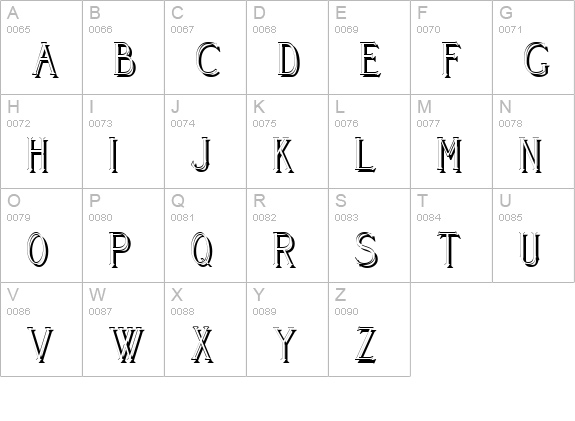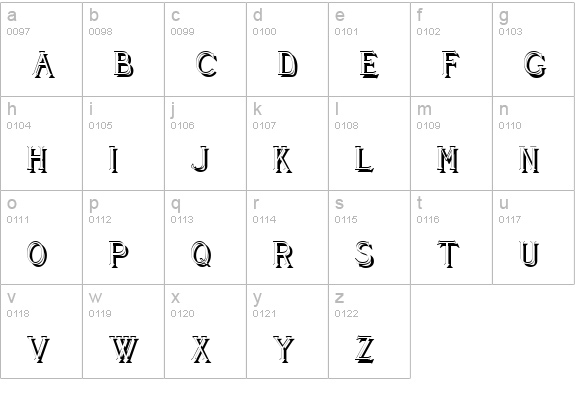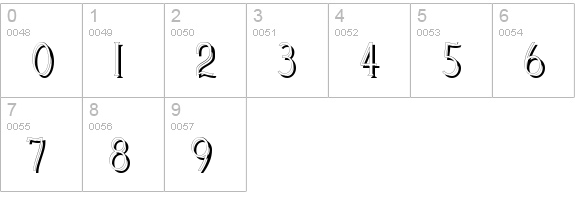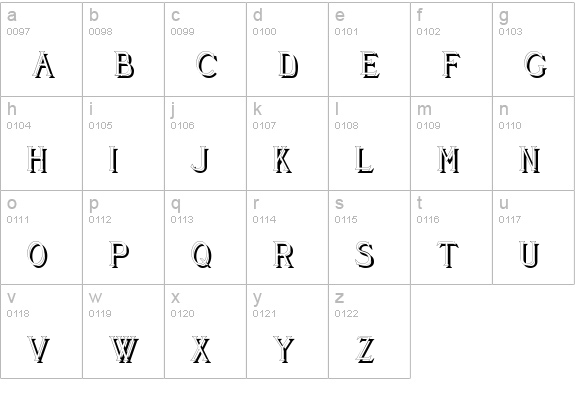
Cleaver's_Juvenia_Shadowed Font Details
Cleaver's Juvenia Shadowed font is a bold and eye-catching typeface that exudes a sense of mystery and sophistication. Its sharp edges and intricate details make it perfect for creating striking headlines or adding a touch of drama to your designs. The shadowed effect adds depth and dimension, giving your text a dynamic and memorable appearance. This unique font is available for free download at FontsMarket.com, making it easily accessible for designers and creatives looking to elevate their projects without breaking the bank. Whether you're working on a poster, logo, or website, Cleaver's Juvenia Shadowed font is sure to make a statement and leave a lasting impression on your audience.